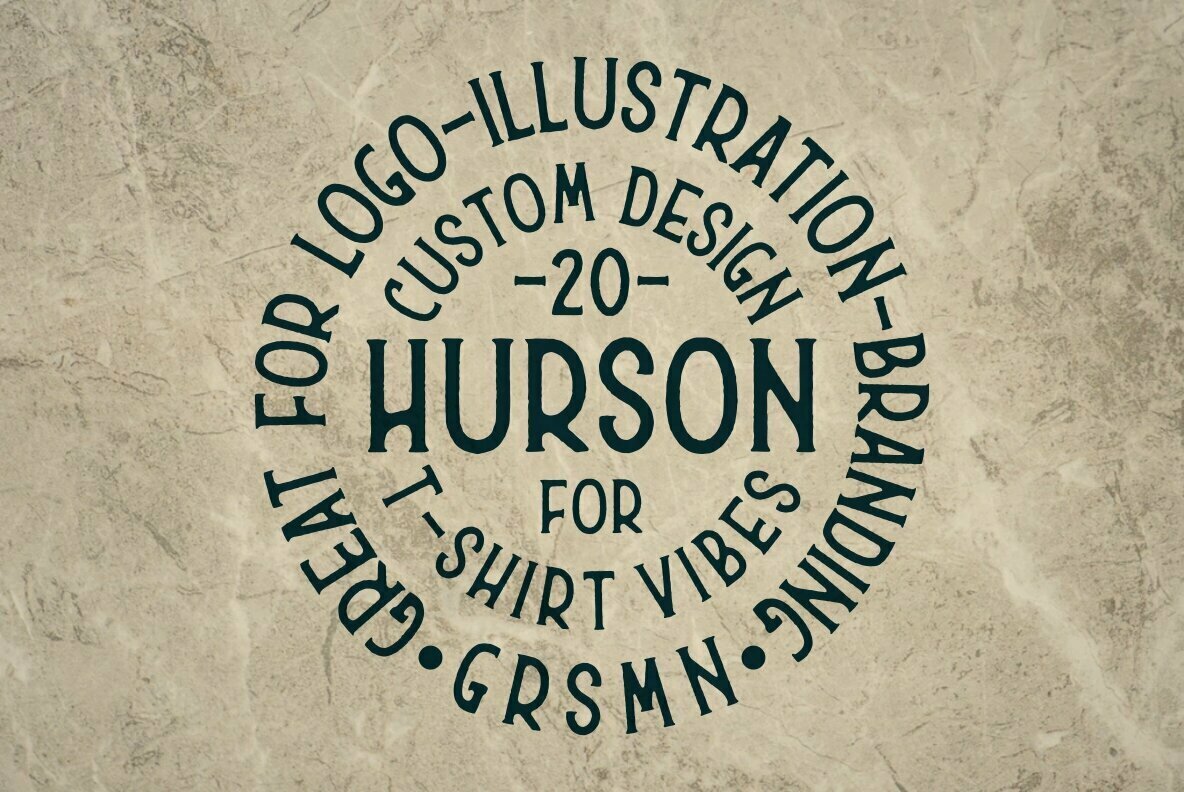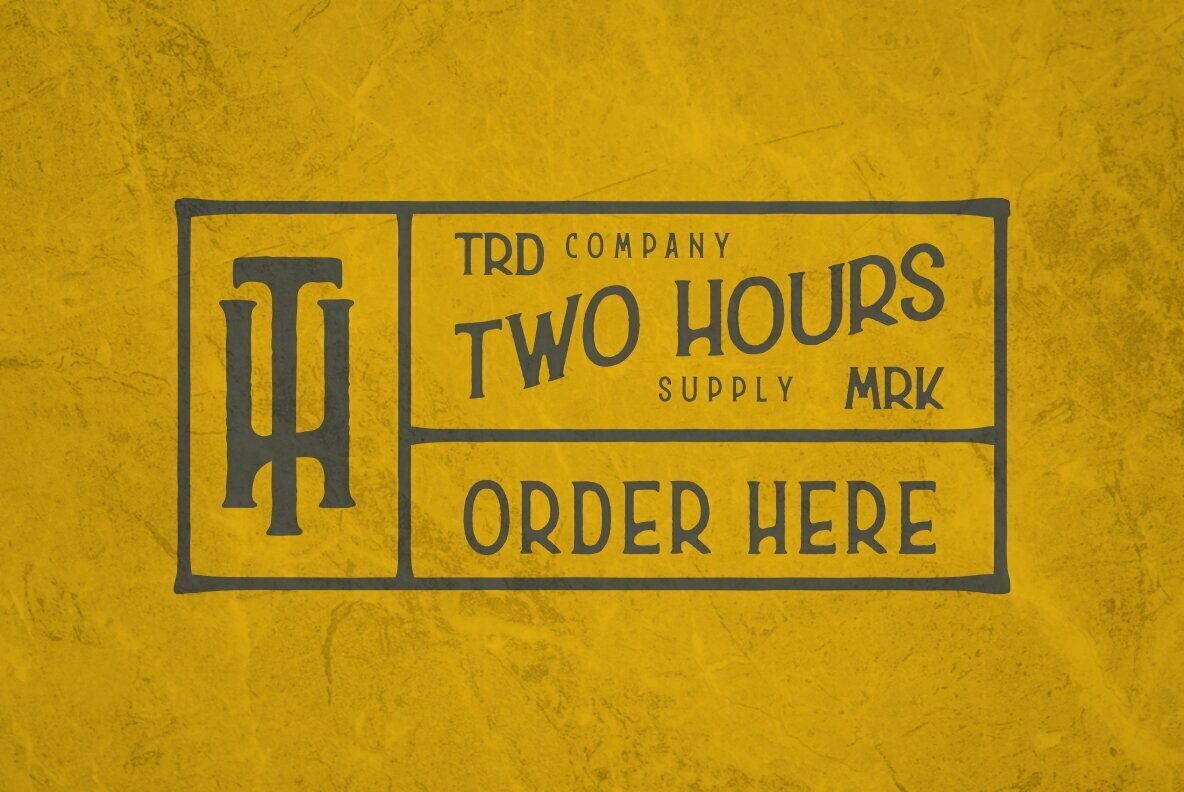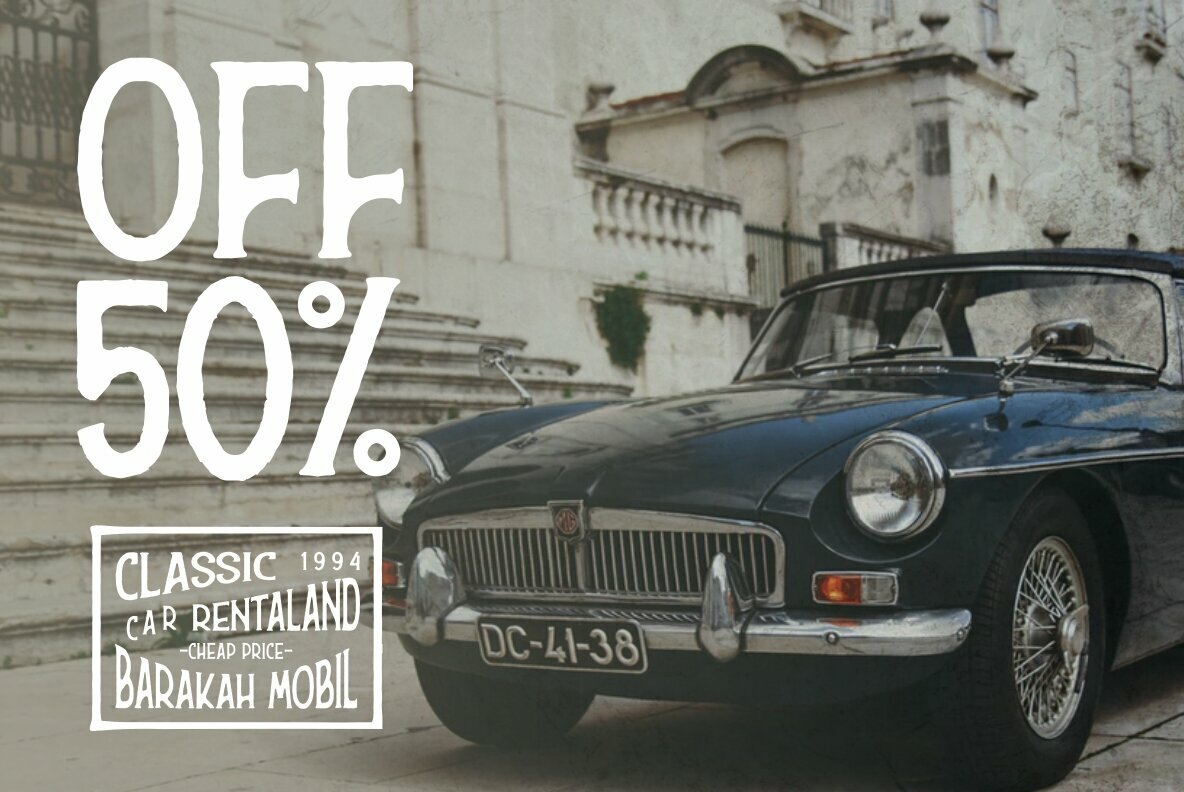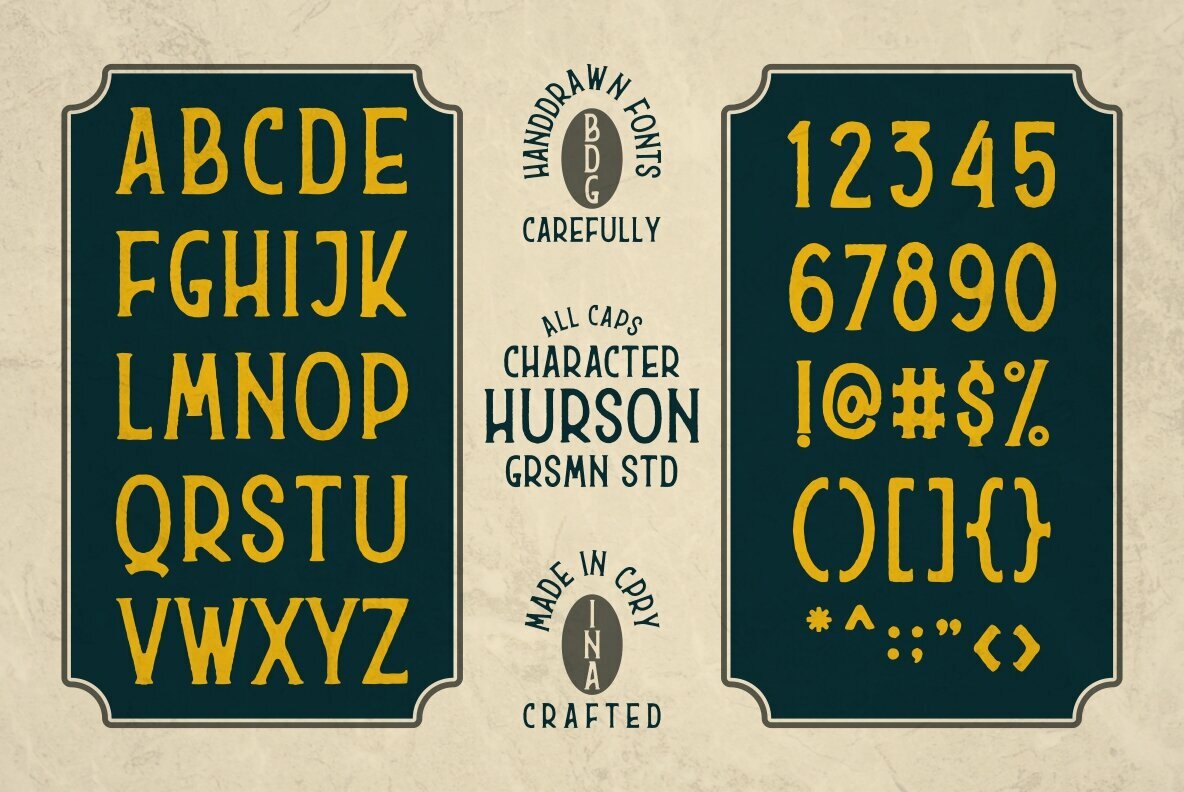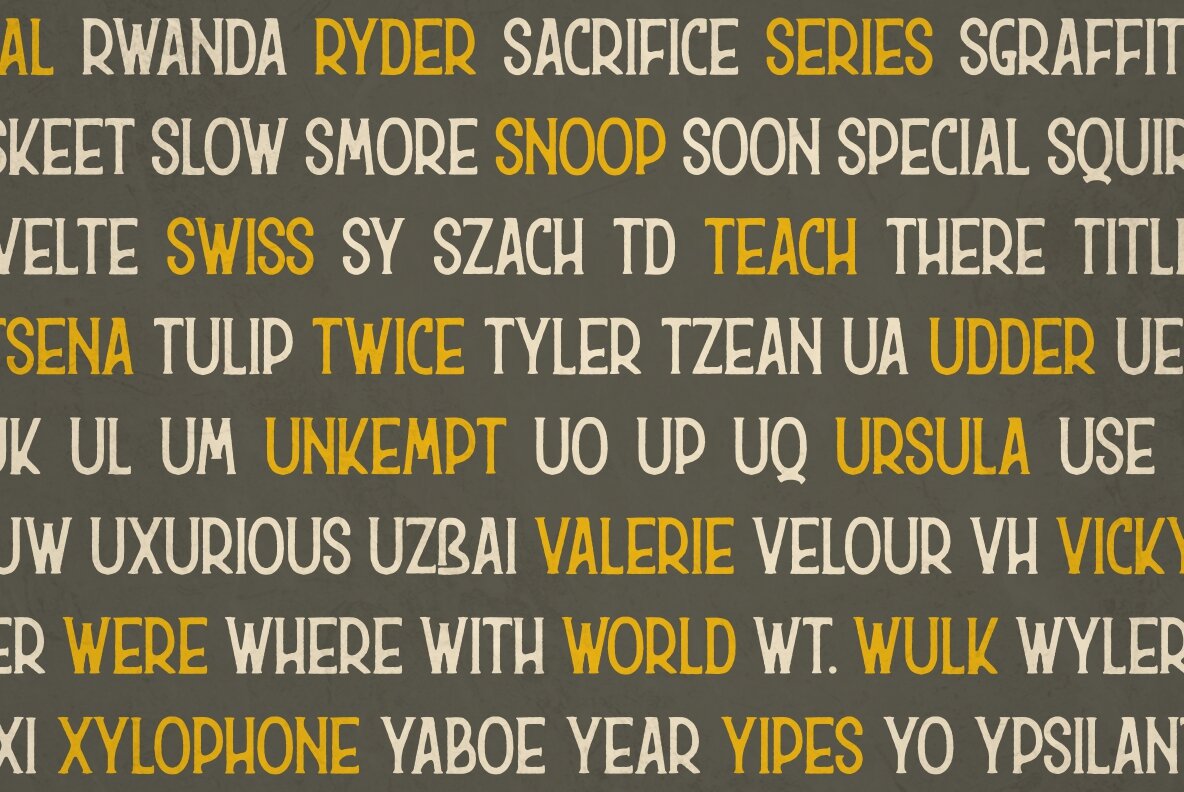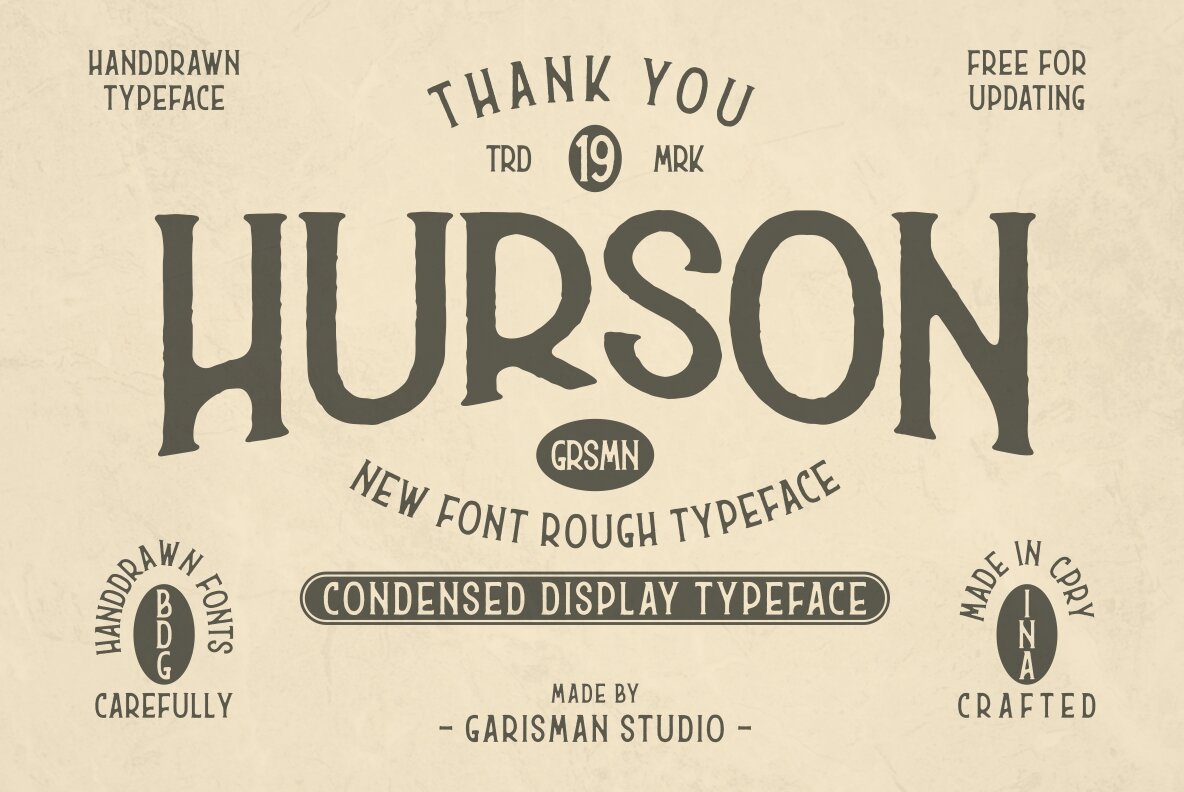
HURSON Font
Hurson
Delve into a world of nostalgia with Hurson, a distinctive typeface that captures the essence of a bygone era through its original, hand-drawn style. This vintage-inspired font imbues projects with a classic, handmade look, making it ideal for those seeking a thoughtful aesthetic. Hurson is well-suited for a variety of graphic design work, from branding materials and business cards to posters and photography.Hurson: A Vintage-Inspired Hand-Drawn Typeface